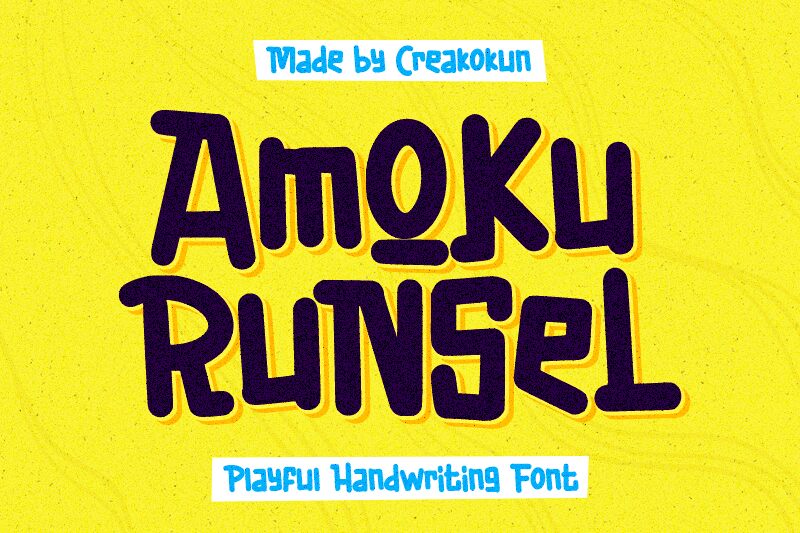
The playful Amoku Runsel font, designed by M Arif Dwi Prasetyo & Eko Nurcahyo, is an eye-catching fusion of modern and vintage styles. Perfect for creative projects such as logos, signs and posters that demand attention!
Amoku Runsel